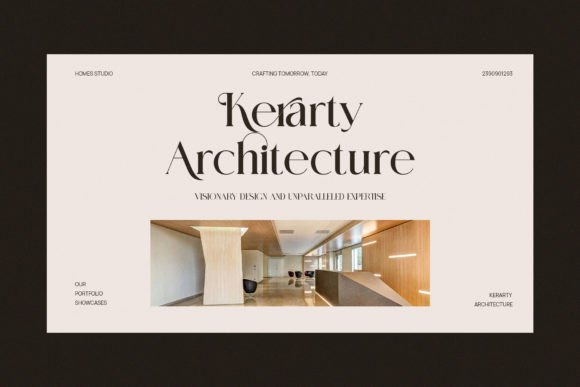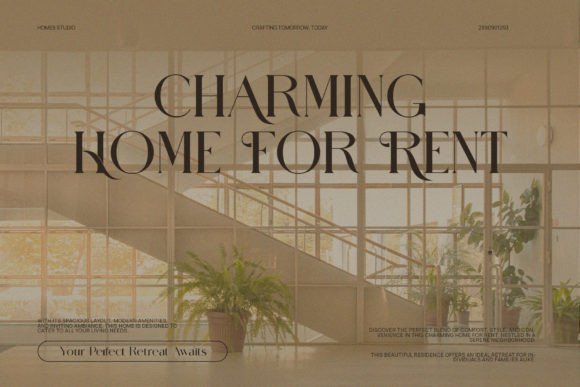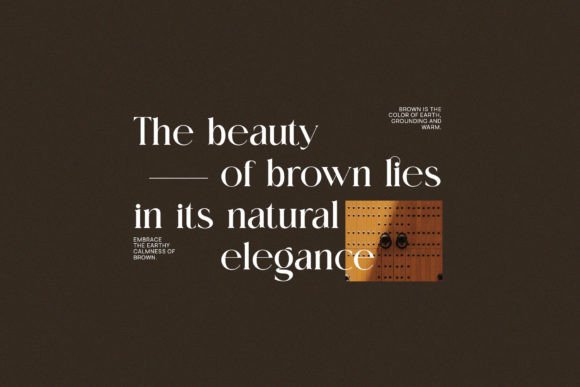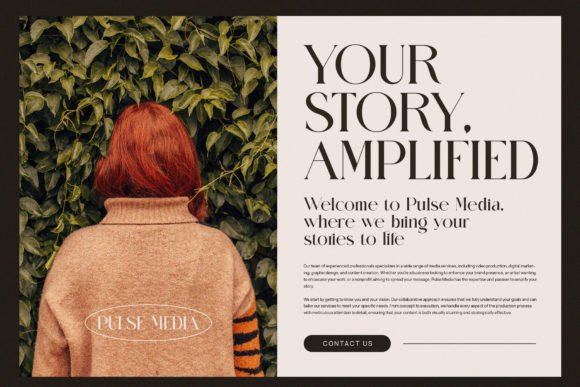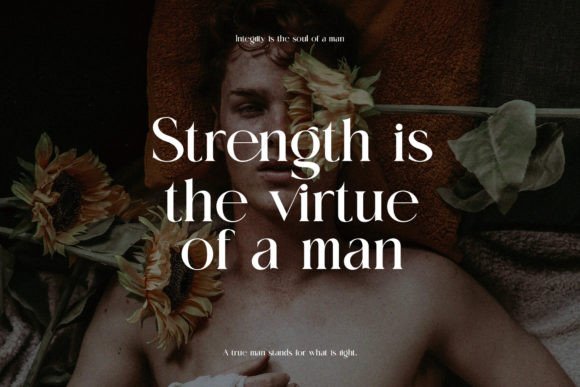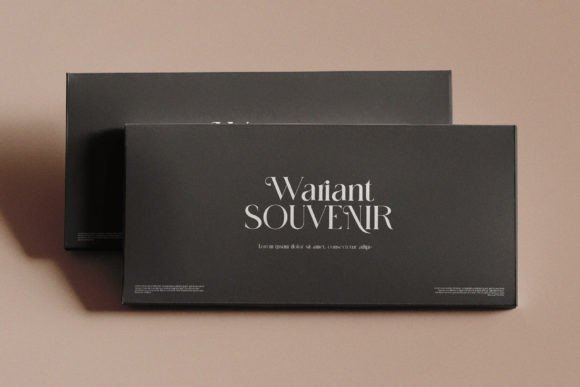
Introduction to Rohima Font
Rohima is a beautiful and light serif font with a unique feel and a stunning impact.
Key Features of Rohima Font
Why Choose Rohima Font?
Rohima Font offers exceptional quality and versatility, making it a valuable addition to your design toolkit. Whether you’re creating for personal projects or commercial use, Rohima Font delivers professional results.